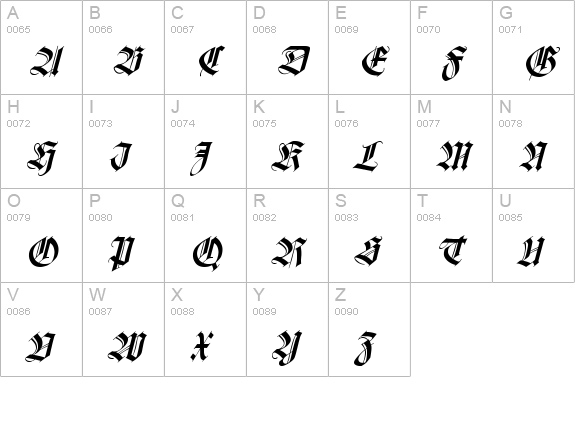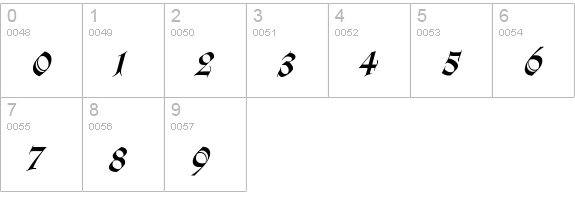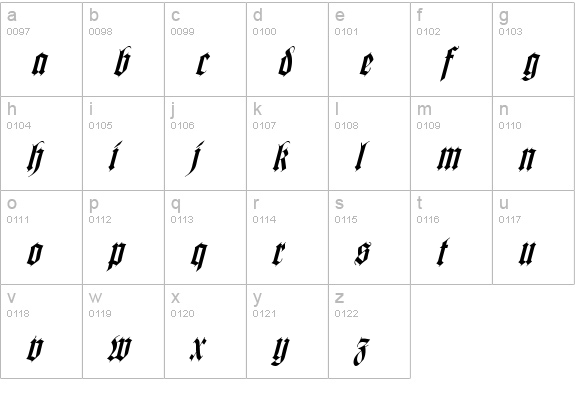
WilhelmKlingsporGotisch Italic Font Details
WilhelmKlingsporGotisch Italic is a distinctive, italic variant in the WilhelmKlingsporGotisch typeface family \xE2\x80\x94 well suited to design and typography projects.
WilhelmKlingsporGotisch Italic font is a stunning typeface that exudes elegance and sophistication. Its delicate and intricate design captures the essence of Gothic calligraphy, making it perfect for projects requiring a touch of old-world charm. The slanted italic style adds a sense of movement and grace, enhancing the overall aesthetic appeal. This font is characterized by its beautifully formed curves and sharp, pointed serifs that create a visually striking contrast. The carefully crafted letterforms showcase the meticulous attention to detail that went into creating this timeless typeface. Each stroke is meticulously executed, resulting in a captivating and unique font that stands out from the crowd. WilhelmKlingsporGotisch Italic font is not only visually appealing but also highly versatile. It can be used for a wide range of design projects, including branding, packaging, invitations, and editorial layouts. Its versatility makes it an excellent choice for both digital and print applications. One of the best features of WilhelmKlingsporGotisch Italic font is that it is available for free download at FontsMarket.com. This means that designers and creatives can access and use this remarkable font without any cost. The availability of this font for free adds to its appeal and makes it accessible to a wider audience. Whether you're working on a personal project or a commercial endeavor, WilhelmKlingsporGotisch Italic font will elevate your design to new heights. Its timeless beauty and graceful aesthetics will leave a lasting impression on your audience. So why wait? Download WilhelmKlingsporGotisch Italic font today from FontsMarket.com and let your creativity shine.